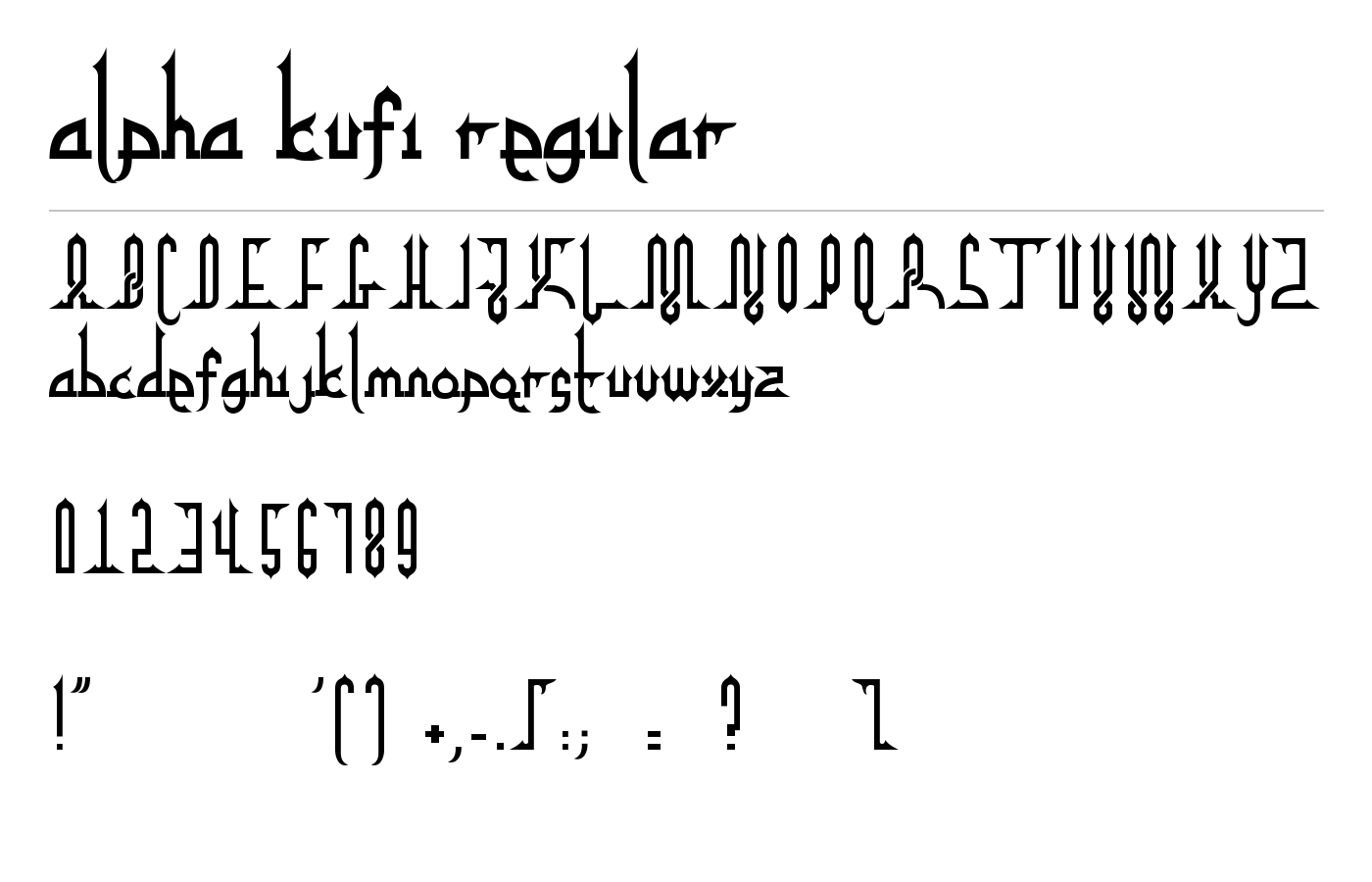
Alpha Kufi Regular is a unique sans serif font inspired by traditional Kufi calligraphy, characterized by its tall, narrow letterforms and sharp angular strokes with high contrast. Its geometric and decorative style gives it an exotic, artistic feel, making it ideal for creative branding, posters, and headlines where a distinctive and cultural touch is desired. This font works best in display settings where its intricate shapes can be appreciated, lending a modern yet historically influenced personality to various design projects.
alpha kufi regular Font
About alpha kufi regular Font